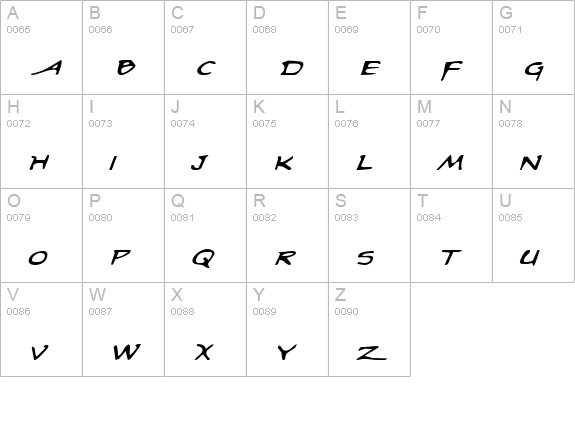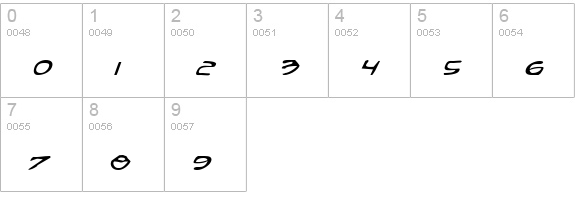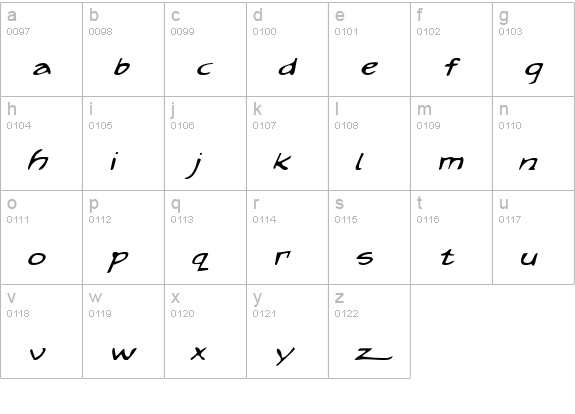
Arilon Expanded Italic is a distinctive, extended-width, italic variant in the Arilon typeface family \xE2\x80\x94 well suited to design and typography projects.
Arilon Expanded Italic font is a striking and elegant typeface that adds a touch of sophistication to any design project. The italicized style of this typeface exudes a sense of modernity and flair, making it perfect for a variety of applications such as branding, editorial design, and more. With its elongated and refined letterforms, Arilon Expanded Italic font conveys a sense of movement and dynamism, drawing the viewer's eye with its graceful curves and sharp angles. Whether used for headlines, titles, or body text, this font is sure to make a statement and captivate your audience. Best of all, Arilon Expanded Italic font is available for free download at FontsMarket.com. This means that you can easily access this stunning typeface and incorporate it into your projects without any cost. Don't miss out on the opportunity to enhance your designs with the beauty and versatility of Arilon Expanded Italic font. Download it today and elevate your creative endeavors to new heights.